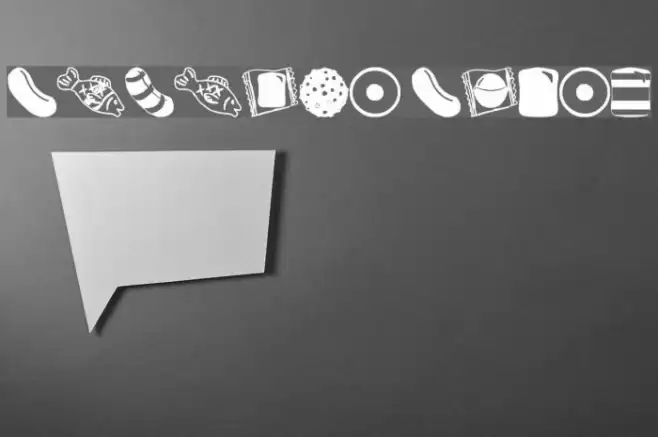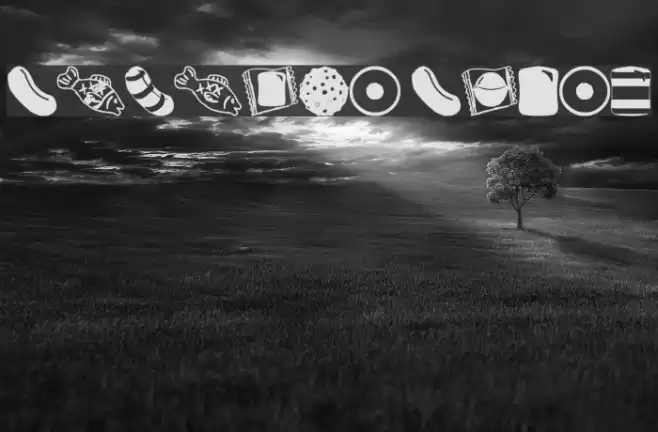
This decorative font features a playful and whimsical design, where each character is represented by a unique candy or sweet treat illustration. The characters are highly stylized, with each letter and number taking on the form of a different confectionery item, such as wrapped candies, gummy bears, and striped sweets. The font is bold and eye-catching, with a consistent theme that makes it ideal for projects requiring a fun and lighthearted aesthetic. The numbers are encased in rounded, glossy shapes, adding to the playful nature of the font. This font is perfect for designs aimed at children or for use in festive and celebratory contexts.
A playful, candy-themed decorative font with each character as a unique sweet treat illustration from Dingbats fonts.
- Proposed Projects: Ideal for children's book covers, candy shop branding, party invitations, and playful posters.
- Overall Style: Playful, Whimsical, Fun
- Use Case: Logos, Posters, Children's materials